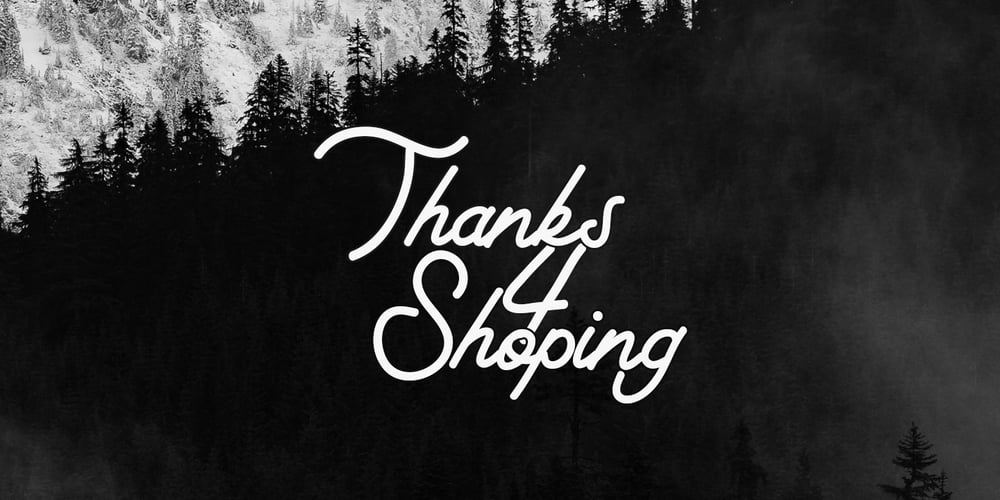
Hustle Faster Font Family was designed by Asep Rendi and published by Arendxstudio. Hustle Faster contains 2 styles and family package options. Hustle Faster font is very suitable for type & logotype. This font is very stylish and with 2 different styles so it gets variations and flavors that will appear more retro style and I think this is perfect for the needs of your design projects